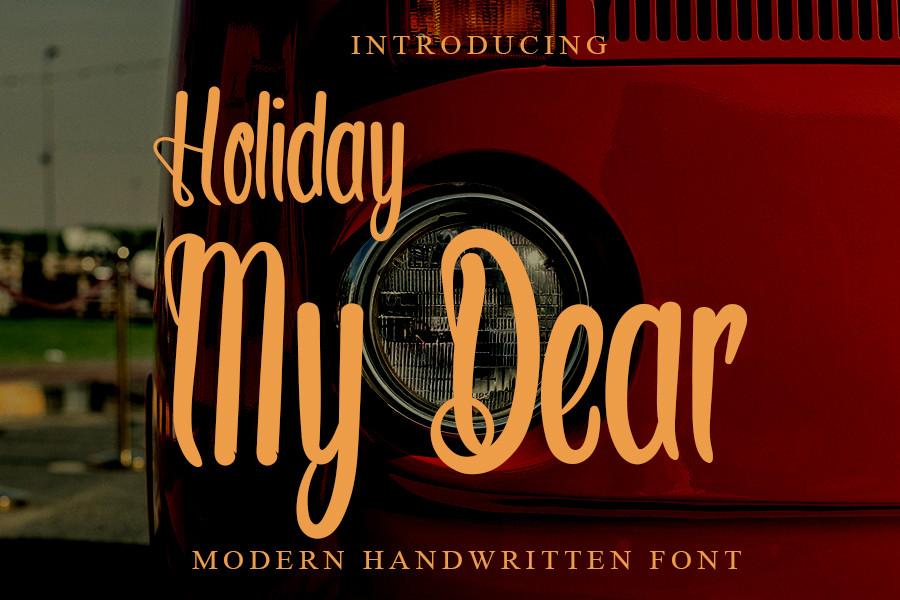
Holiday My Dear Font Description
Holiday My Dear is a gorgeous script font with a modern vibe and spotless form, inspired by a classic calligraphy. Not too thin and not too thick, balanced and varied, this font was designed to enhance the beauty of your projects.